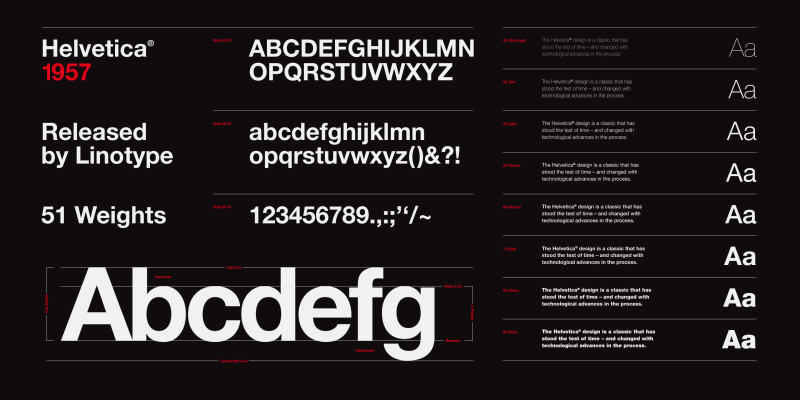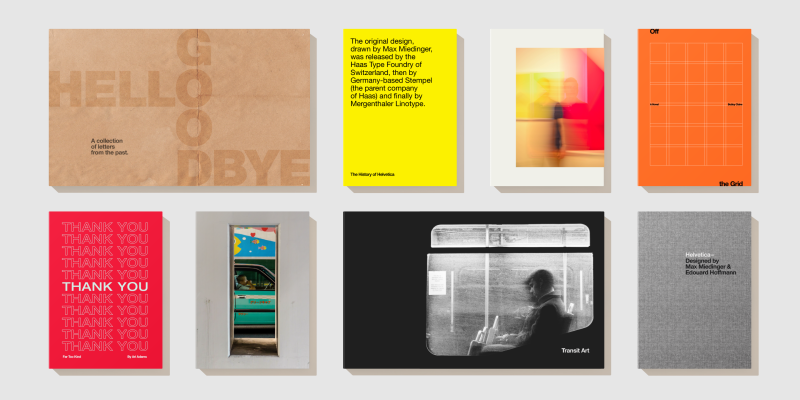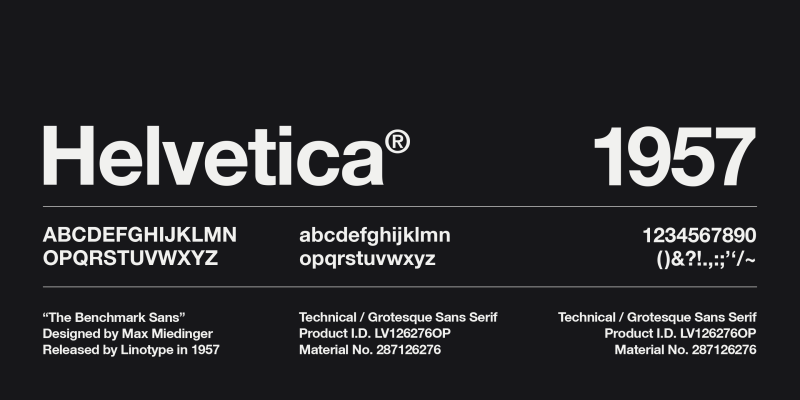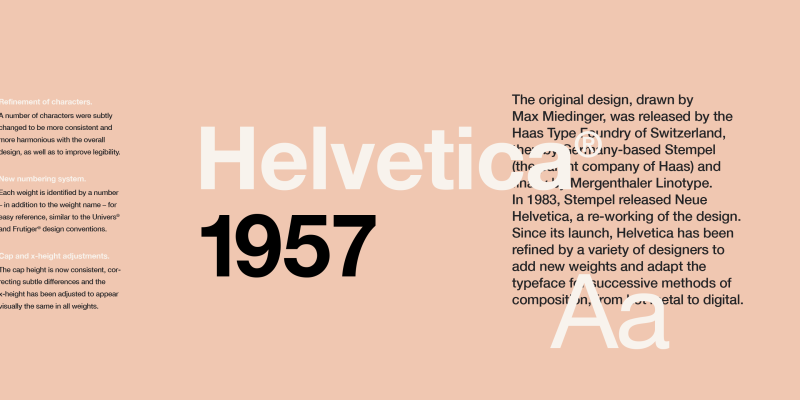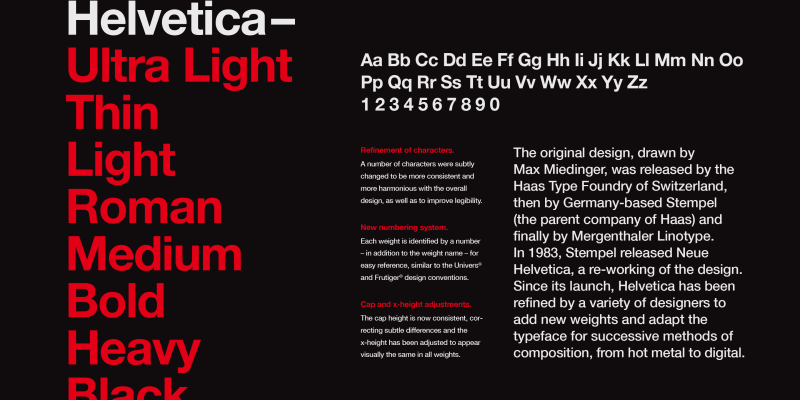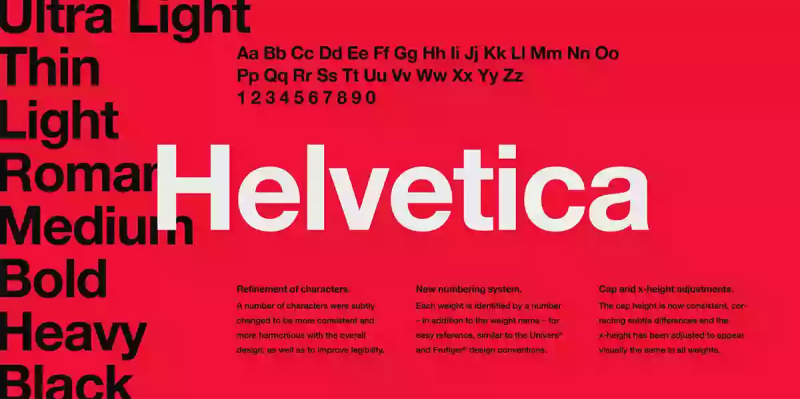
Helvetica Font
Helvetica is the most widely used font. It was created in 1957 by Max Miedinger, a Swiss typeface designer, and his partner, Eduard Hoffmann. In the beginning, it was called Neue Haas Grotesk. Still, the name changed afterward to Helvetica, a combination of the German name “Haas” and the Latin word “Helvetia,” which means Switzerland. The font was designed to be unbiased, modern, and easily read sans-serif.
Helvetica rose to fame due to its fantastic appeal and identification with the mid-20th-century modernist design movement. It was idealized by many graphics designers, corporations, and governments across the globe for its flexibility and clarity, hence its wide application in various areas.
Helvetica started with a Swiss-style font, a significant development in the 1920s. The Zurich design, called the International Typographic Style, focused on simplicity, transparency, and objectivity.
The design of Helvetica was created by Swiss designer Max Miedinger and his partner, Eduard Hoffmann. Miedinger is a Swiss typeface designer who collaborates with Edouard Hoffmann, owner of the Haas Type Foundry in Switzerland. Together, they aim to produce a font that represents the main idea of Swiss design and, on the other hand, allows for excellent legibility and variability.
The flexibility of Helvetica has been evident not only in typography but also in other media and industries. It is apparent in corporate logos, signs, adverts, print media, user interfaces, and digital platforms. Its neutral nature and decipherability allow information to be communicated clearly in small and large types.
The font’s minimalist and sophisticated appearance has made it a go-to choice for designers looking for a classic and professional appeal. Many famous brands, such as American Apparel, BMW, Jeep, and Nestlé, have used it on their logos and brand materials.
Many of the typefaces come with the particulars equivalent to Helvetica’s but also have some distinct elements. Some popular alternatives include:
Arial: Created to be an alternative for Helvetica, which is also by Monotype, Arial has similar design features yet has minor differences in letterforms and kerning.
Univers: This is a creation of Adrian Frutiger. Univers is a generic sans-serif typeface possessing an extended range of weights and styles.
Gotham: Established by Hoefler & Co, Gotham is endowed with a clean and contemporary design with a little bit of geometric, hence the capability to meet the needs of the latest branding and design projects.
Where Helvetica Font works best
Helvetica Font keeps its shape at 14 and 16 pixels, which is where interface text actually lives. Numbers and capitals stay distinguishable in tables.
Presentations are read at a distance; a clean sans with a strong bold is the safest hierarchy you can build in a hurry.
Simple letterforms survive angles, glare and movement, so Helvetica Font suits door signs, menus boards and exhibition panels.
What kind of work does Helvetica Font suit?
It sits in the Sans Serif Fonts group and reads as classic, clean, elegant, minimalist. That makes it a candidate wherever those qualities help: headings, packaging, social graphics and brand work. Set it at the size you plan to use before deciding.